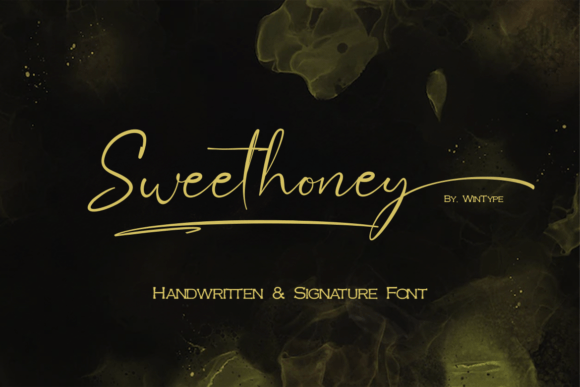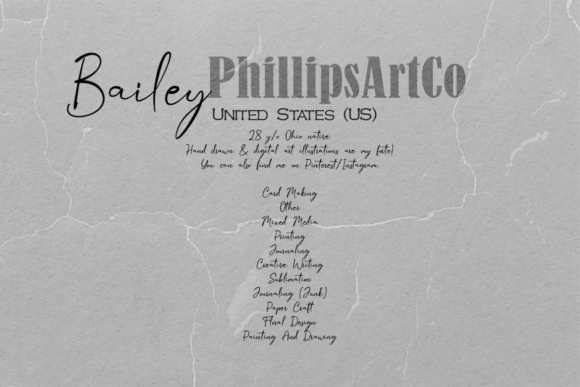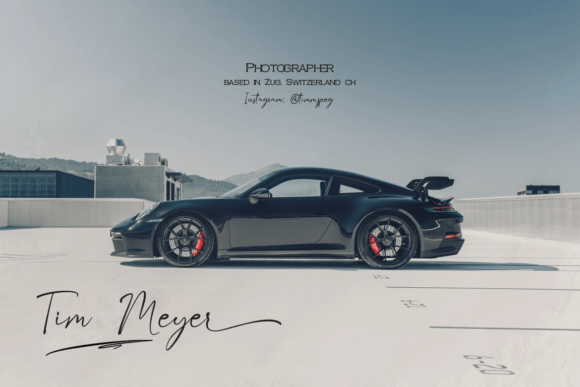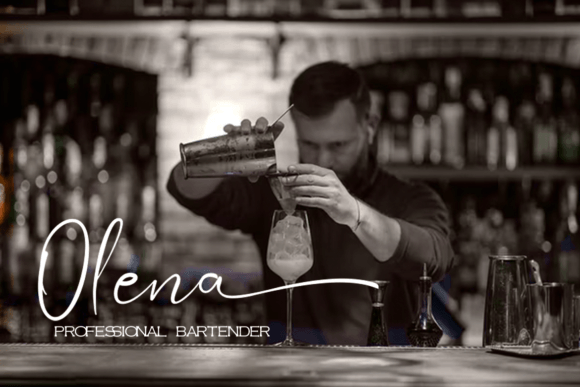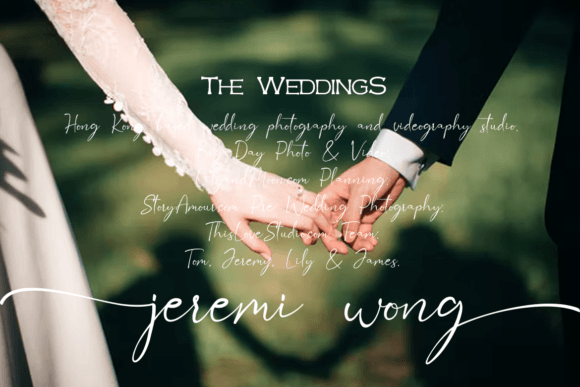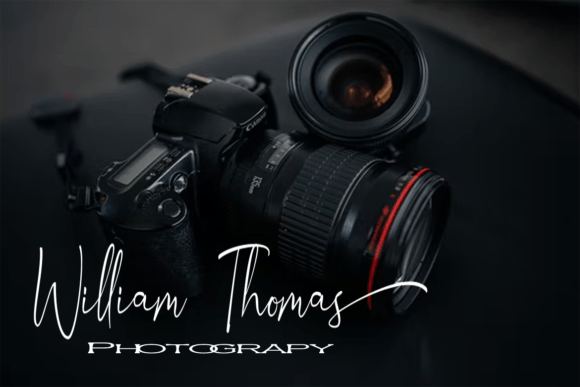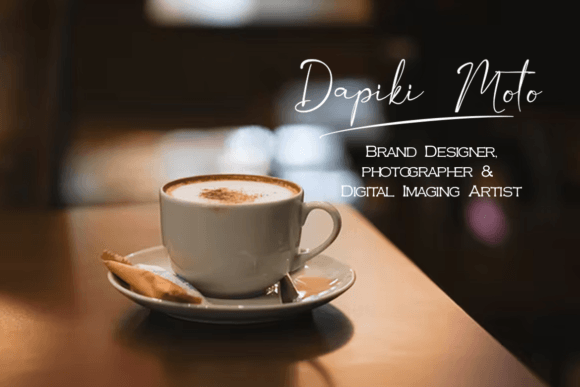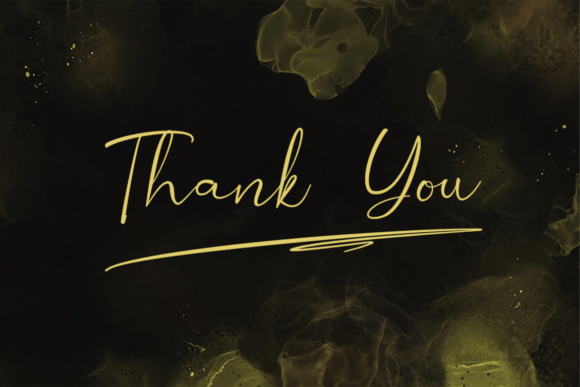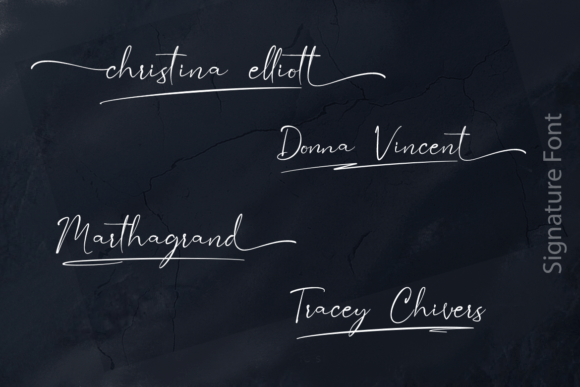
Sweethoney Font
About Sweethoney Font
Introducing Sweethoney, a beautiful handwritten signature script that exudes a natural and classy writing style. This font is crafted to add a touch of elegance to your designs, offering versatility with included styles that can be combined seamlessly for a unique and sophisticated appearance.
Sweethoney’s charm lies in its ability to mimic natural handwriting, making it perfect for a wide array of design applications. Whether you’re working on branding, photography, invitations, quotes, watermarks, advertisements, product designs, labels, social media, or any creative project, Sweethoney is ready to elevate your designs with its graceful and distinctive aesthetic.
The natural writing style of Sweethoney brings a personal and authentic touch to your text. It’s not just a font; it’s a signature that adds character and uniqueness to your branding and design projects. The included styles offer creative flexibility, allowing you to experiment and find the perfect combination for your specific needs.
Imagine Sweethoney on a brand logo, where its handwritten signature style communicates authenticity and refinement. Picture it on a wedding invitation, bringing a touch of elegance to the celebration. Envision it on social media posts, adding a personalized and classy flair to your content.
In summary, Sweethoney is more than just a font; it’s a versatile tool for creative expression. Whether you’re working on personal projects or professional endeavors, let Sweethoney be the beautiful and handwritten signature that enhances your designs with a touch of class and sophistication.